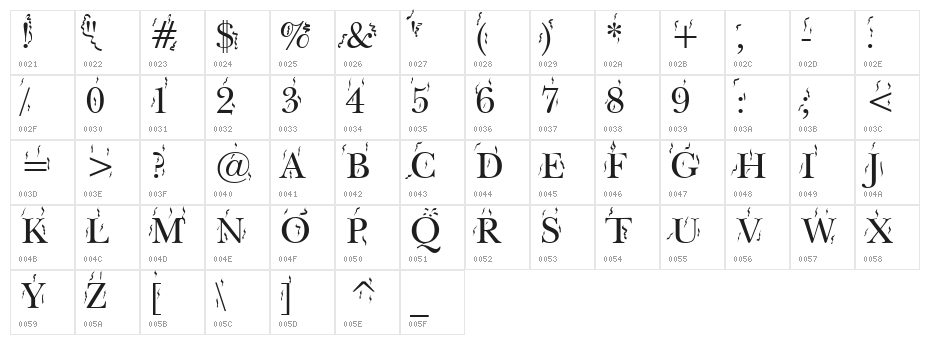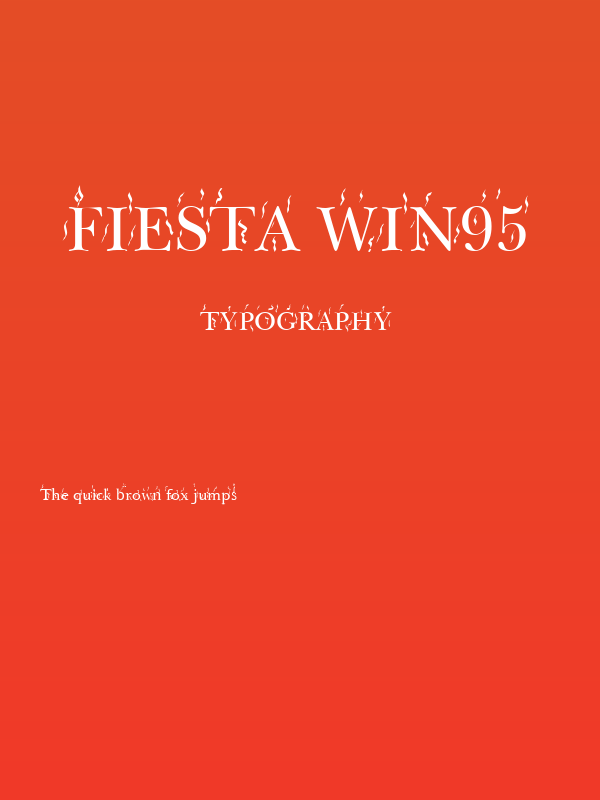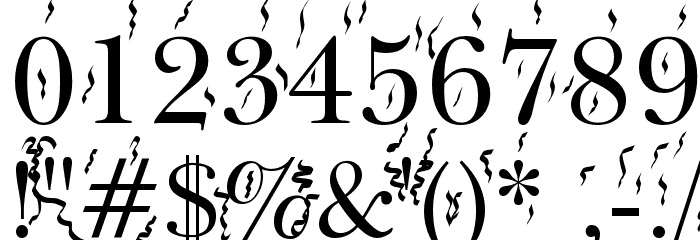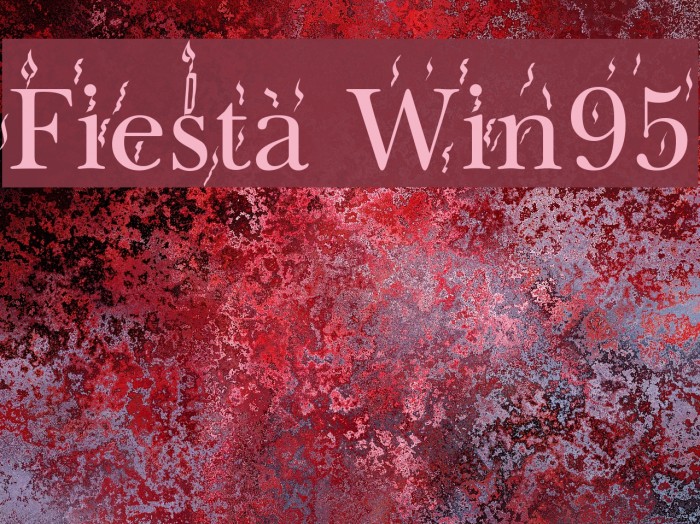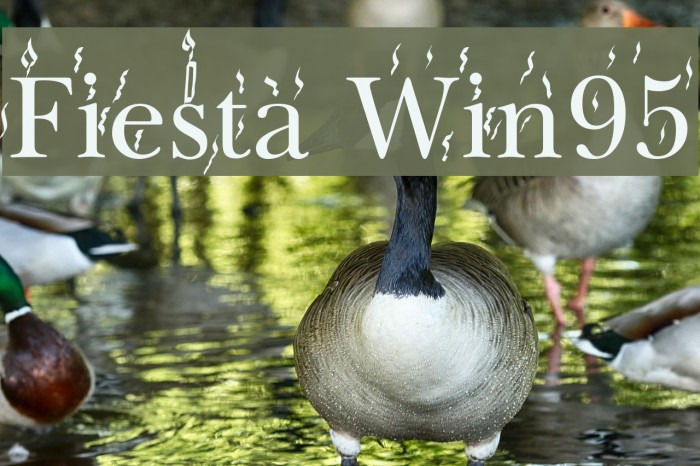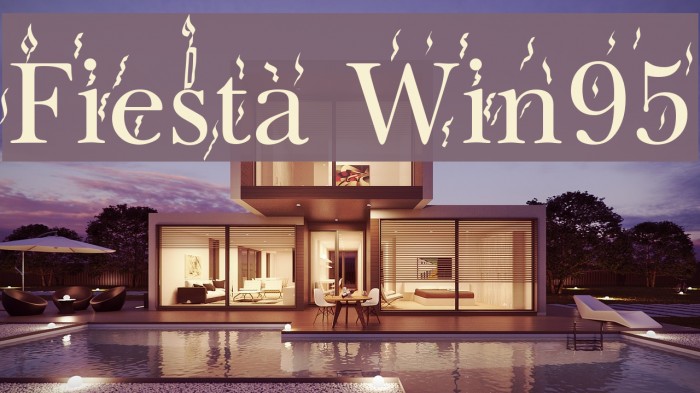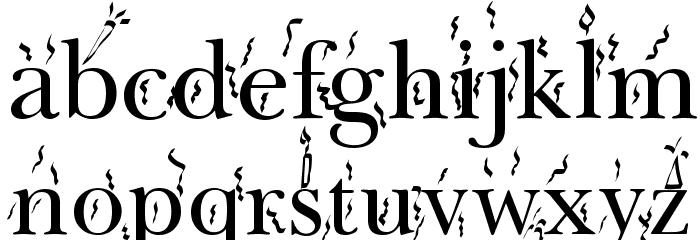
Fiesta Win95 Font
Fiesta Win95 Description
This font features a playful and decorative style, incorporating whimsical elements that resemble confetti or streamers around each character. The uppercase and lowercase letters maintain a classic serif structure, providing a sense of tradition and readability, while the decorative elements add a festive and lively touch. The numerals and special characters follow the same design, ensuring consistency across all glyphs. This font is ideal for projects that require a celebratory or fun atmosphere, making it suitable for invitations, party announcements, or themed branding.
| Use Case | Headlines, Logos, Invitations |
| Proposed Projects | Ideal for party invitations, festive branding, event posters, and playful designs. |